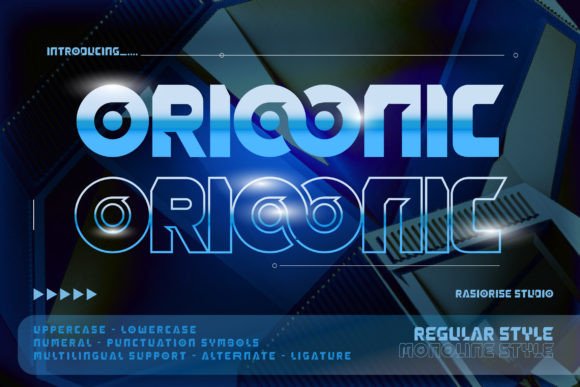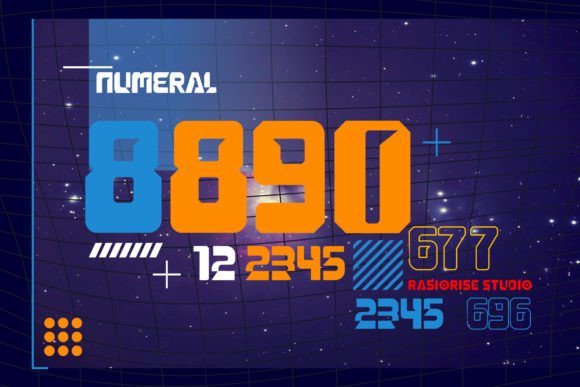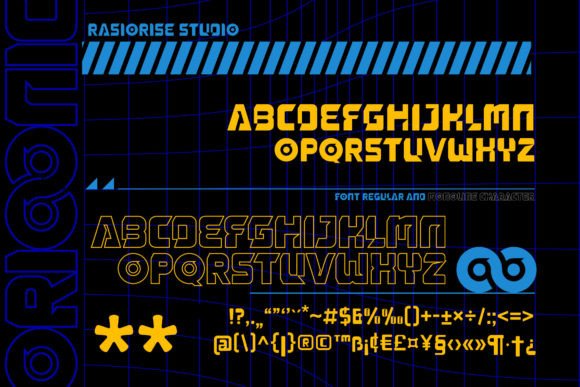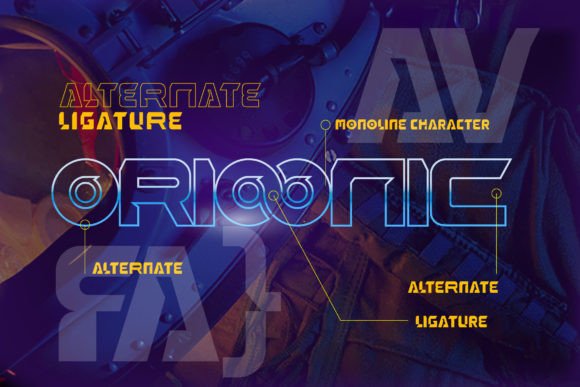
Orioonic Font: A Modern Display Font for Y2K & Futuristic Branding
About the Orioonic Font
Welcome to the world of Orioonic Font, a typeface that will inspire your next great project. Introducing Orioonic, a Futuristic Y2k decorative font. Orioonic has been released for those of you who are looking for a Y2K futuristic font. It is perfect for use on social media, posters, business cards and so much more.
Orioonic’s bold, futuristic aesthetic makes it ideal for headlines, short impactful statements, and branding projects that demand a strong visual presence. It excels in posters, logos, and packaging designs where its Y2K-inspired forms create a memorable impression. However, its decorative nature makes it less suitable for body text or UI elements requiring high readability. Extended use could strain legibility.
Pairing Orioonic effectively requires a contrasting typeface to balance its strong personality. A clean sans-serif like Futura or a geometric sans-serif such as Roboto would provide a crisp counterpoint, enhancing readability in supporting text. For a softer contrast, consider a neutral serif like Garamond or a more playful script font for added visual interest, but only in limited applications.
Orioonic’s core personality is undeniably bold and futuristic, conveying a sense of technological advancement and playful rebellion. Brands targeting a young, tech-savvy audience, or those promoting products with a futuristic or retro-futuristic design language, will find it particularly effective.
Orioonic Font Example